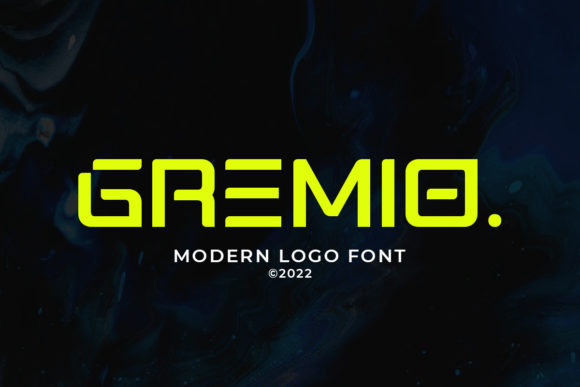
Explore Gremio Font - Your Gateway to a Cutting-Edge Technological Identity
In a digital world where first impressions reign supreme, your logo stands as a visual ambassador, conveying your brand's ethos and captivating your audience's attention. Introducing Gremio Font, the ultimate font for crafting technology logos that leave an indelible mark.
Gremio's clean lines, sharp angles, and futuristic aesthetic exude an air of innovation and progress. Its meticulously crafted characters evoke a sense of precision and sophistication that perfectly complements the cutting-edge nature of technology companies. Whether you're a tech startup aiming to disrupt the industry or an established brand seeking a refreshed identity, Gremio is your font of choice.
With its sans serif design, Gremio ensures optimal readability both on screen and in print. Its distinct letterforms, ranging from bold and assertive to sleek and minimal, provide endless possibilities for creating logos that command attention. Experiment with different character combinations to create a unique and memorable logo that resonates with your brand's personality.
Gremio's versatility extends beyond technology logos. Its modern and stylish appearance makes it an excellent choice for a wide range of creative projects, including website design, app development, and marketing materials. Unleash your creativity and let Gremio elevate the visual appeal of your projects, leaving a lasting impression on your audience.
Join the ranks of tech giants and creative innovators who have harnessed the power of Gremio Font to forge a strong brand identity. Embrace the future of logo design and embark on a journey to create a visual masterpiece that sets you apart from the competition.